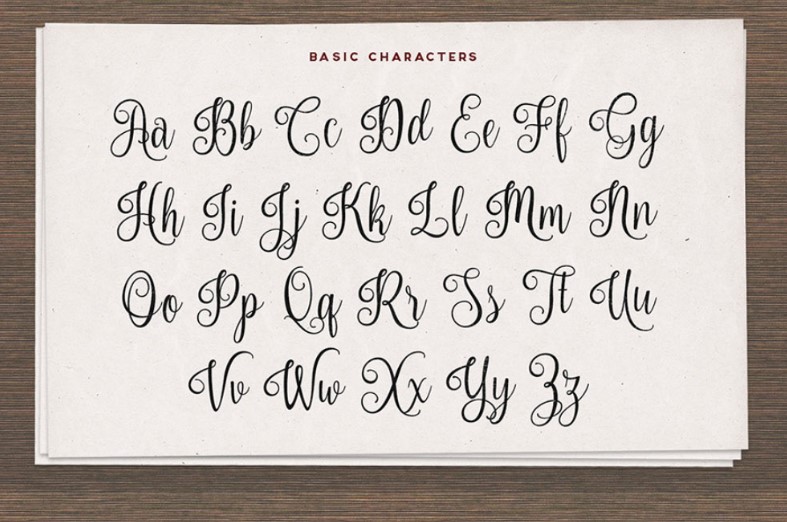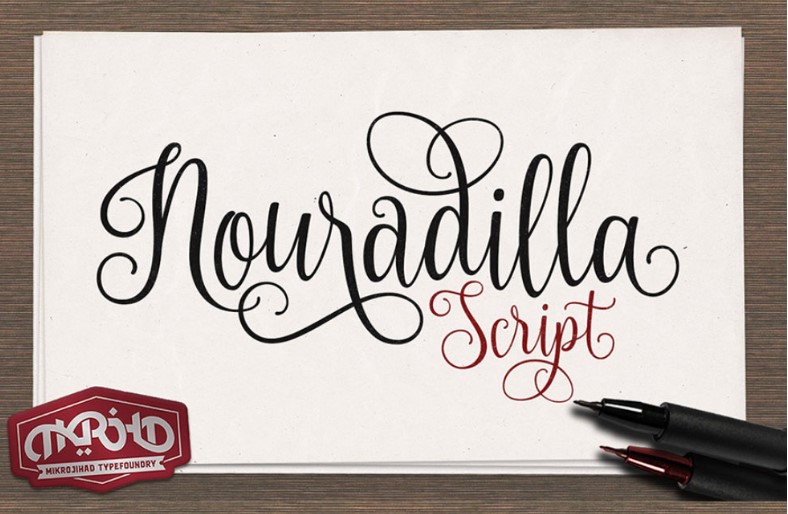
Nouradilla Font
Nouradilla font is famous for its script typeface. This font is a gardenia typeface that is quite similar to the samantha script font. This is available for personal use. As a surrender the cease give up end result, it makes it feasible for being one of the crucial multi-treasured that is just like fuel’rock font alternatives and awesome to assist your layout and seem knowledgeable.
It is flexible that can be an amazing manner to artwork in frame replica as proper as titles, and there can be an understated beauty to it that we pretty like. So, it’s taken into consideration notable for quite-present day-day designs. Nouradilla Font Free You need to select out out the shape of font that’s properly superior, and each and everybody is recognizable in small sizes, formidable, or italic. And all of those patterns have possessed opentype record codecs.
It’s miles a complete ocean font with a nature of commonality that looks effective in an in-intensity scope of uses like printing or displaying. It seems like wild magnolia and attractive fonts.